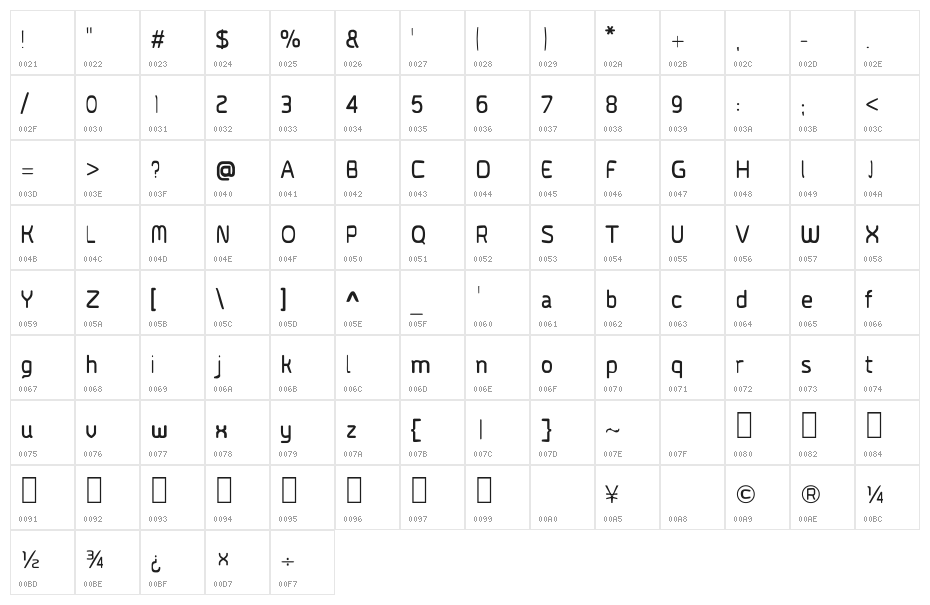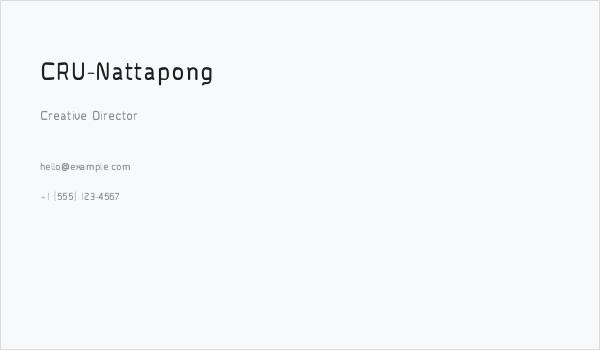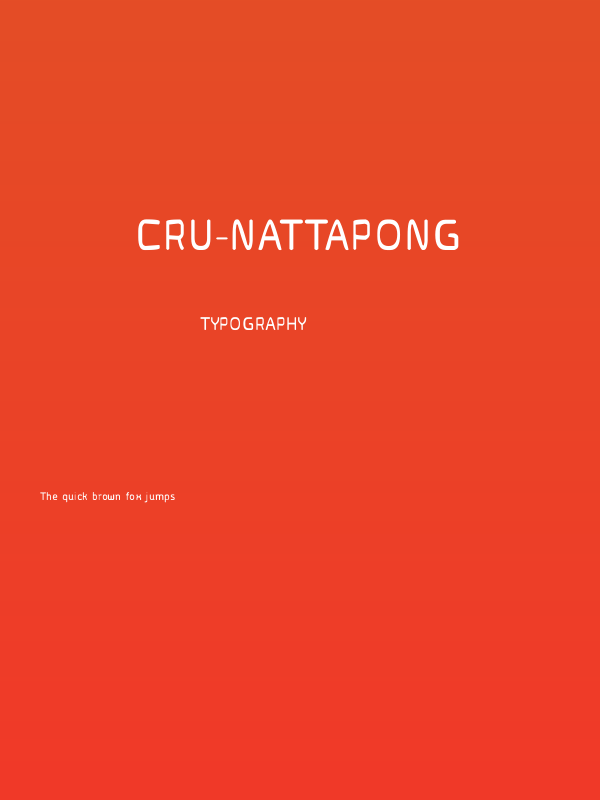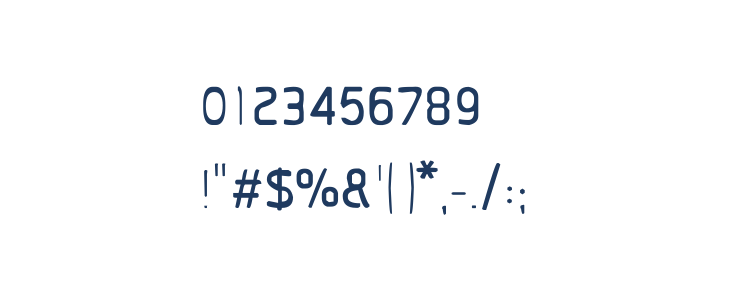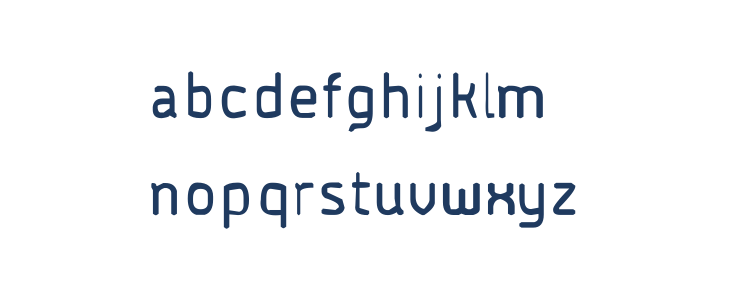
CRU-Nattapong Font
CRU-Nattapong Description
This font features a modern and clean design with rounded edges and a geometric structure. The characters are uniform in width, providing a balanced and harmonious appearance. The uppercase letters are bold and assertive, while the lowercase letters maintain a friendly and approachable style. The numerals are clear and easily distinguishable, making them suitable for various applications. Special characters are well-integrated, maintaining the overall aesthetic of the font. The consistent stroke width across all characters gives it a cohesive look, making it versatile for both digital and print media.